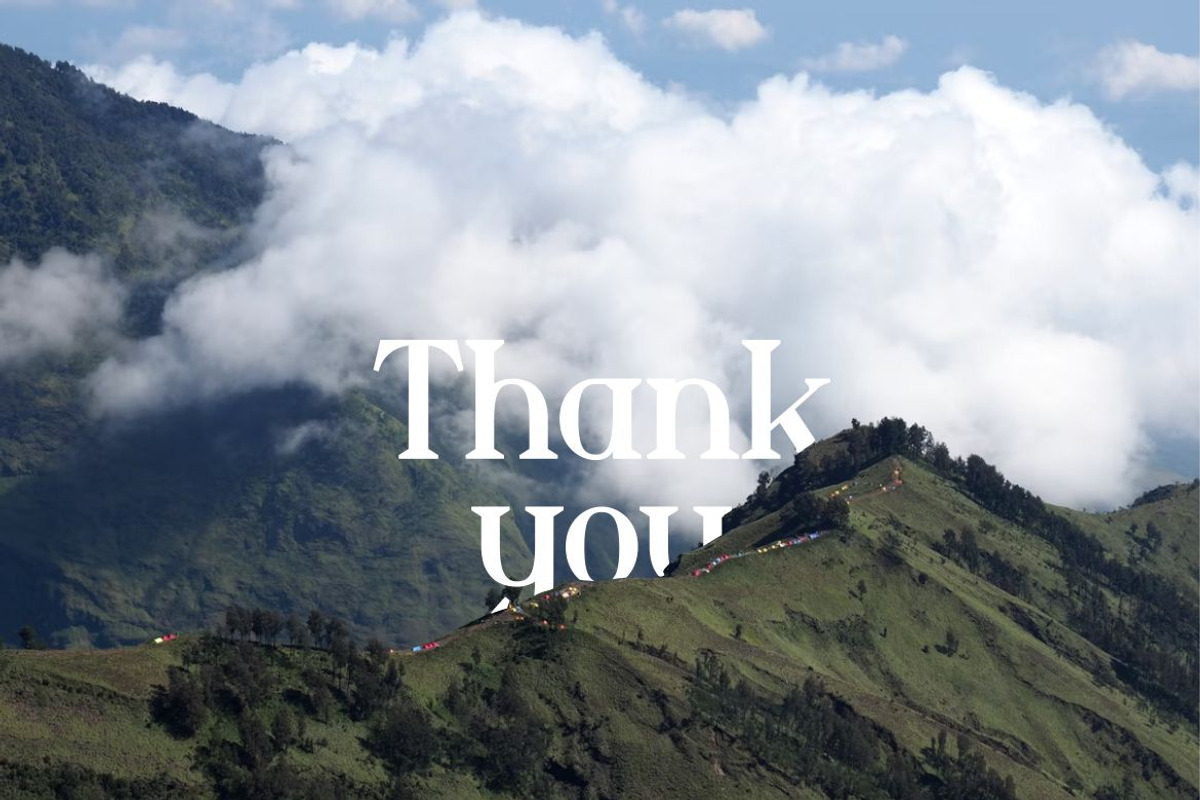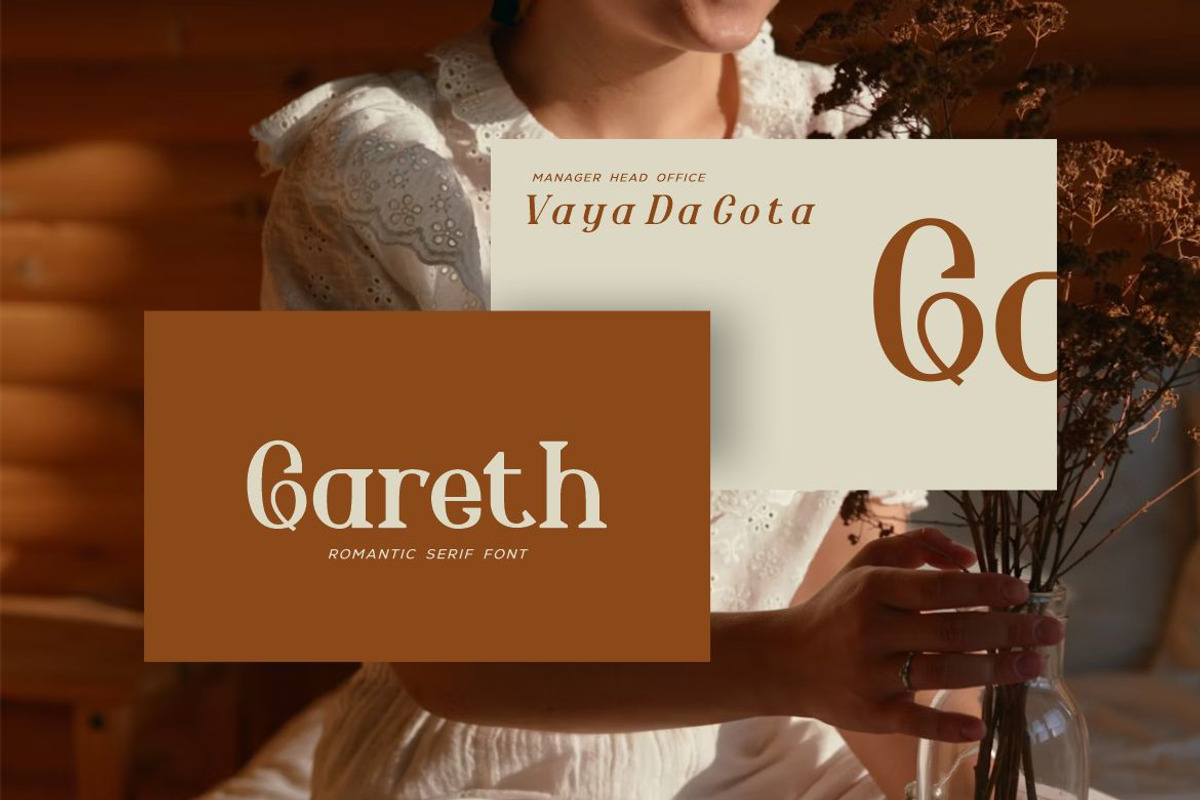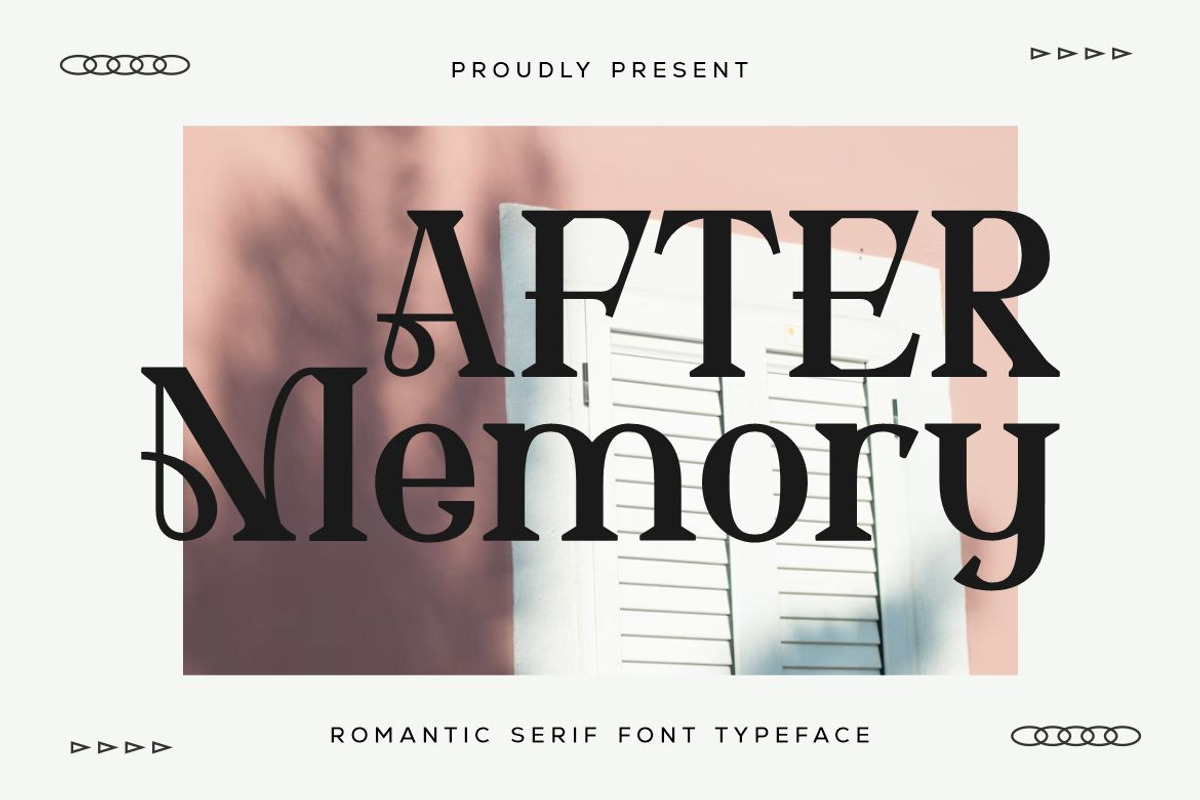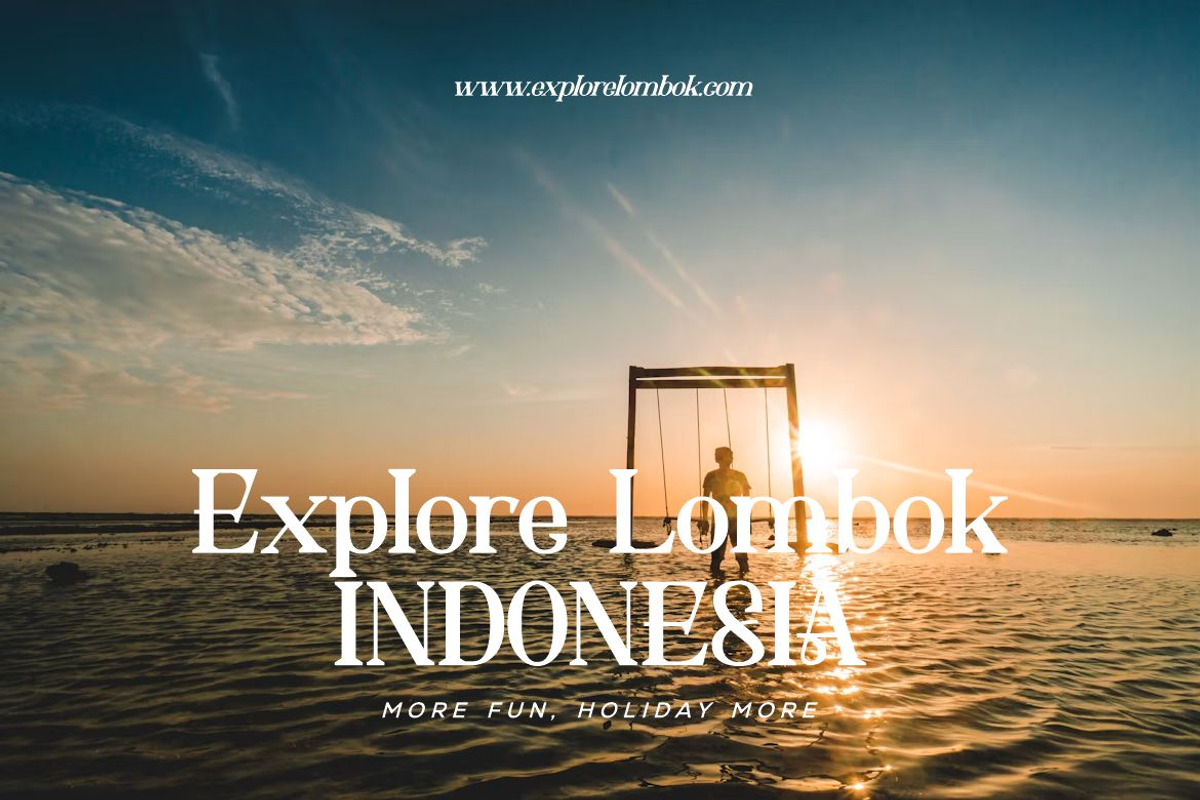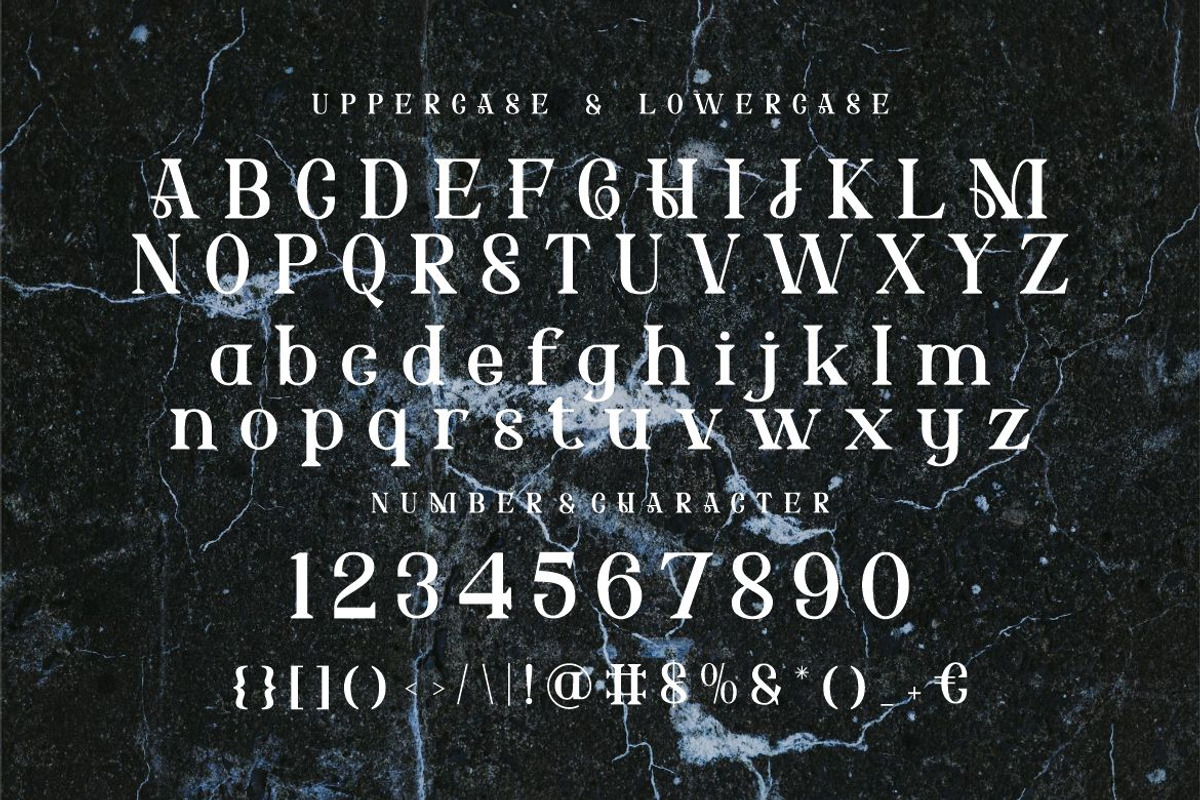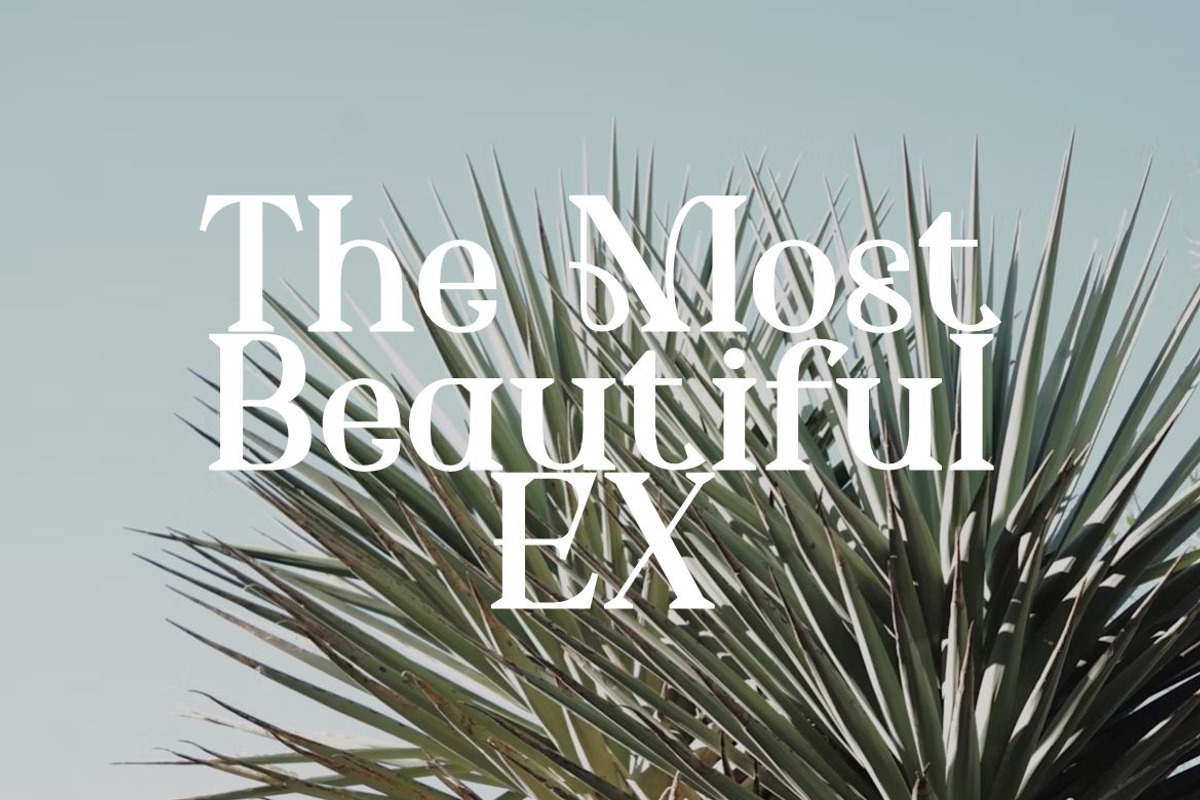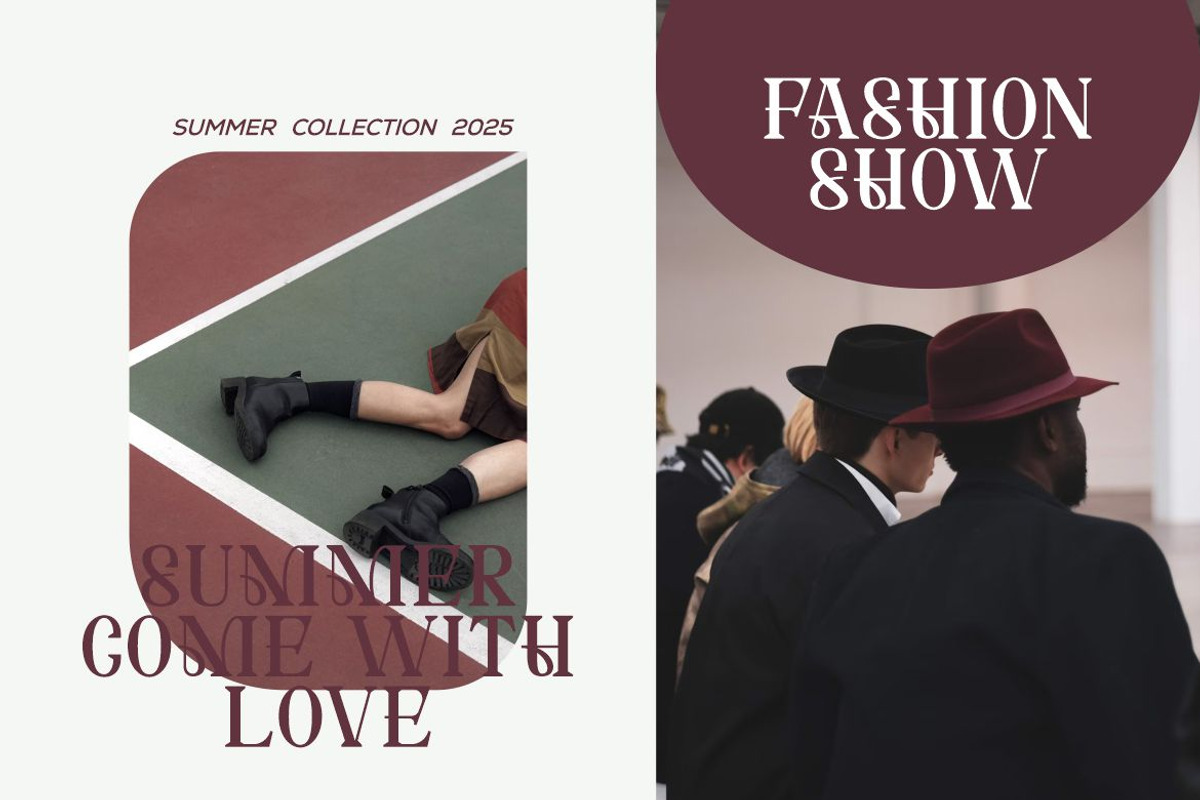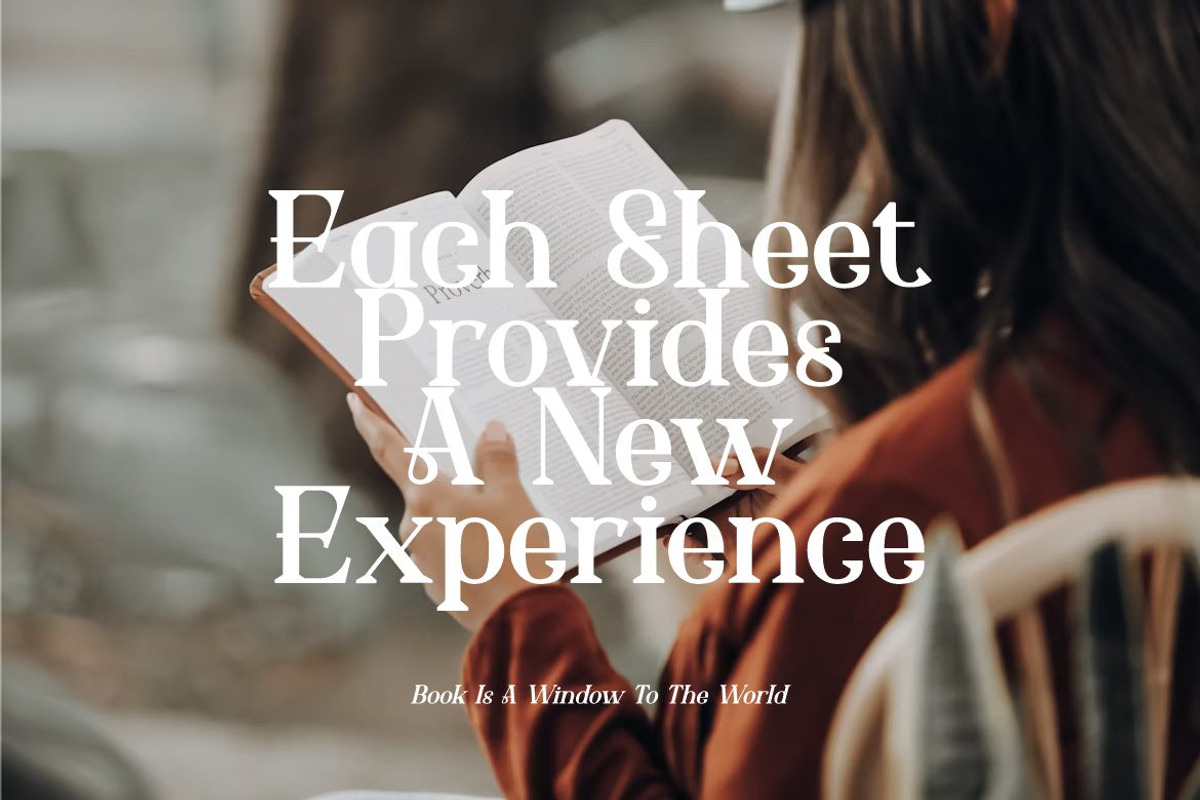
After Memory
After Memory, an extremely elegant and fragile serif font with beautiful ligatures and alternate glyphs. This typeface includes multilingual support, and it will be perfect to upgrade your brand to an entirely new level.
Uppercase basics, alternates & ligatures Lowercase basics, alternates & ligatures Multilingual support Numbers Punctuation, symbols and accents To access the extra Opentype alternates and ligatures a software that supports Opentype features is required, such as Adobe Illustrator, Photoshop or inDesign.